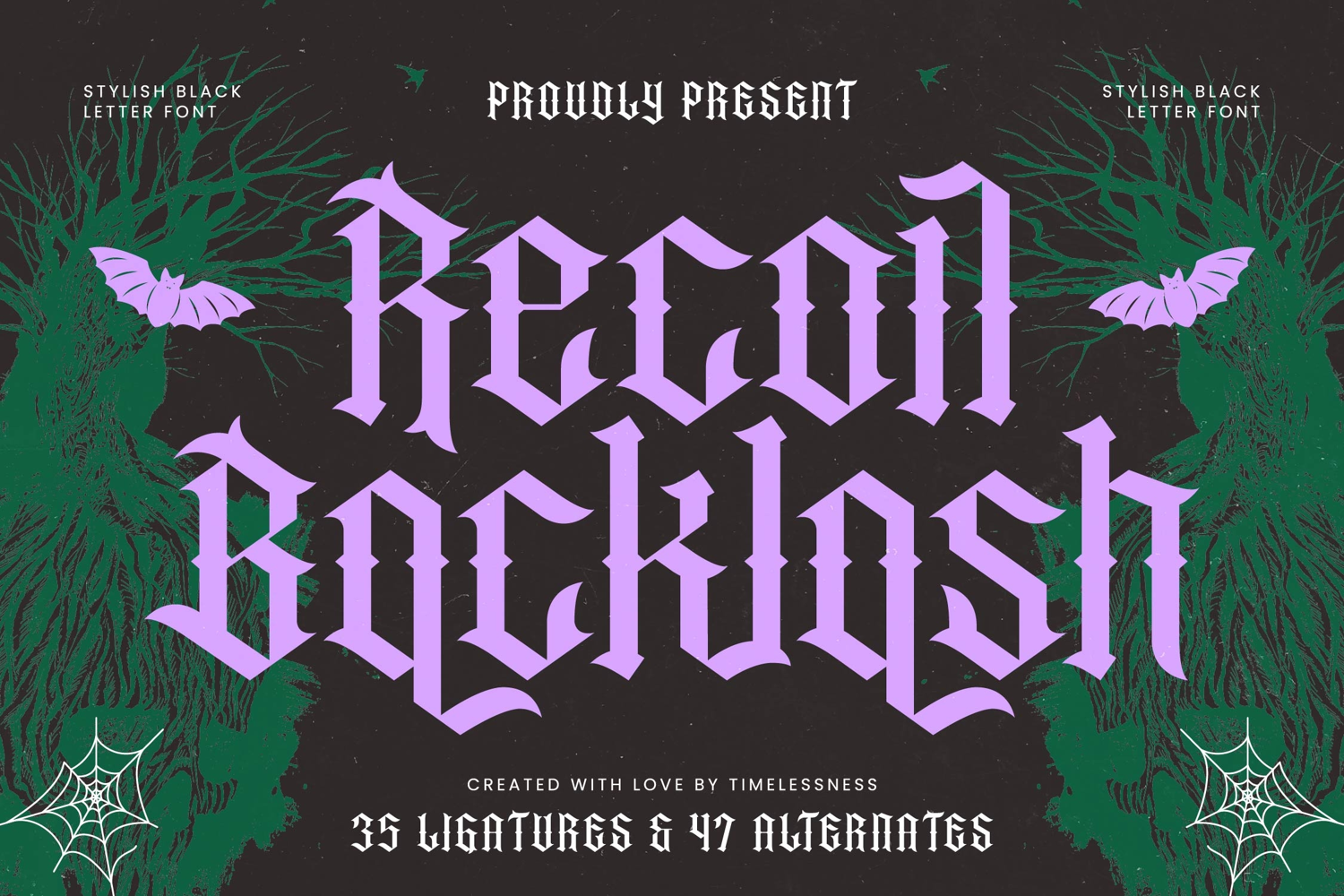
Recoil Backlash - Stylish Blacklatter Font
Unleash a dramatic statement with Font Recoil Backlash - Stylish Blacklatter Font Blackletter, a typeface that redefines the classic Blackletter style with a contemporary edge. This font exudes a powerful yet refined aesthetic, immediately capturing attention with its captivating elegance and robust character. Perfect for projects demanding both historical gravitas and modern flair, its unique letterforms ensure your message stands out.
Experience unparalleled creative freedom with the rich features of Font Recoil Backlash - Stylish Blacklatter Font Blackletter. Boasting an impressive collection of 35 ligatures and 47 alternates, this font allows for extensive customization, enabling designers to craft truly unique typographic compositions. Its strong serifs and high-contrast strokes provide a commanding visual presence, offering depth and sophistication to any design.